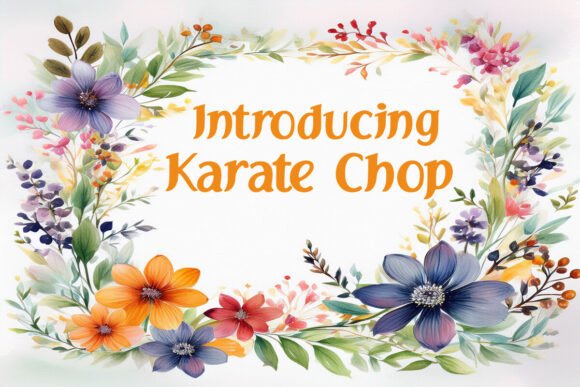
Unleash Your Creativity with Karate Chop Font: The Ultimate Guide
Are you tired of using the same old fonts for your designs? Do you want to add a touch of effortless vitality to your projects? Look no further than the Karate Chop Print font. This bold and eye-catching font is perfect for striking t-shirt designs, bold branding initiatives, and eye-catching magazine layouts. In this article, we’ll explore the world of Karate Chop Font and show you how to inject your projects with a dose of creativity and individuality.
What is Karate Chop Font?
Karate Chop Font, also known as Karate Chop Print, is a unique and bold font that is designed to make a statement. With its striking and edgy design, this font is perfect for those who dare to design differently. Whether you’re a graphic designer, a DIY enthusiast, or a social media influencer, Karate Chop Font is the perfect tool to add some excitement to your projects.
The Versatility of Karate Chop Font
One of the best things about Karate Chop Font is its versatility. This font can be used for a wide range of projects, from t-shirt designs and branding initiatives to magazine layouts and social media posts. The font’s bold and eye-catching design makes it perfect for grabbing attention and making a statement.
Here are some of the ways you can use Karate Chop Font:
- T-shirt designs: Create striking and memorable t-shirt designs that will stand out from the crowd.
- Branding initiatives: Use Karate Chop Font to create bold and eye-catching branding materials, such as logos and business cards.
- Magazine layouts: Add some excitement to your magazine layouts with Karate Chop Font’s bold and edgy design.
- Social media posts: Make your social media posts pop with Karate Chop Font’s eye-catching design.
- Greeting cards: Create memorable and unique greeting cards with Karate Chop Font.
- Cricut projects: Add an individual charm to your Cricut projects with Karate Chop Font.
- Stickers and posters: Create stand-out stickers and posters with Karate Chop Font’s bold and eye-catching design.
Why Choose Karate Chop Font?
So why choose Karate Chop Font over other fonts? Here are some reasons why Karate Chop Font stands out:
- Unique design: Karate Chop Font has a unique and bold design that will make your projects stand out.
- Versatility: Karate Chop Font can be used for a wide range of projects, from t-shirt designs to social media posts.
- High-quality: Karate Chop Font is a high-quality font that is designed to produce crisp and clear results.
Tips and Tricks for Using Karate Chop Font
Here are some tips and tricks for using Karate Chop Font:
- Use it sparingly: Use Karate Chop Font sparingly to make a bigger impact.
- Pair it with other fonts: Pair Karate Chop Font with other fonts to create a unique and interesting design.
- Experiment with colors: Experiment with different colors to find the one that works best with Karate Chop Font.
- Use it for headlines: Use Karate Chop Font for headlines and titles to grab attention.
In conclusion, Karate Chop Font is a unique and bold font that is perfect for those who dare to design differently. With its versatility, ease of use, and high-quality design, Karate Chop Font is the perfect tool to add some excitement to your projects. Whether you’re a graphic designer, a DIY enthusiast, or a social media influencer, Karate Chop Font is sure to make your projects stand out.
Here are some frequently asked questions about Karate Chop Font:
- What is Karate Chop Font?
- Karate Chop Font is a unique and bold font that is designed to make a statement.
- What can I use Karate Chop Font for?
- You can use Karate Chop Font for a wide range of projects, from t-shirt designs to social media posts.
- Is Karate Chop Font a high-quality font?
- Yes, Karate Chop Font is a high-quality font that is designed to produce crisp and clear results.